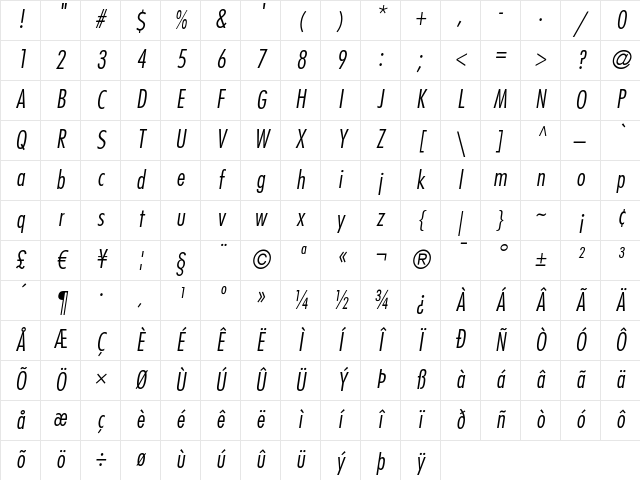
Futura LT CondensedLightObl
Complete Futura LT CondensedLightObl glyph index. Displaying only characters natively supported by Futura LT CondensedLightObl font.
Design Context for Futura LT
Futura LT has a distinctly futuristic character, with geometric precision and clean angles that feel at home in technology, gaming, and sci-fi contexts. Its slender proportions lend an understated elegance to any composition. Its narrow stance lets it pack a punch even in space-constrained designs.